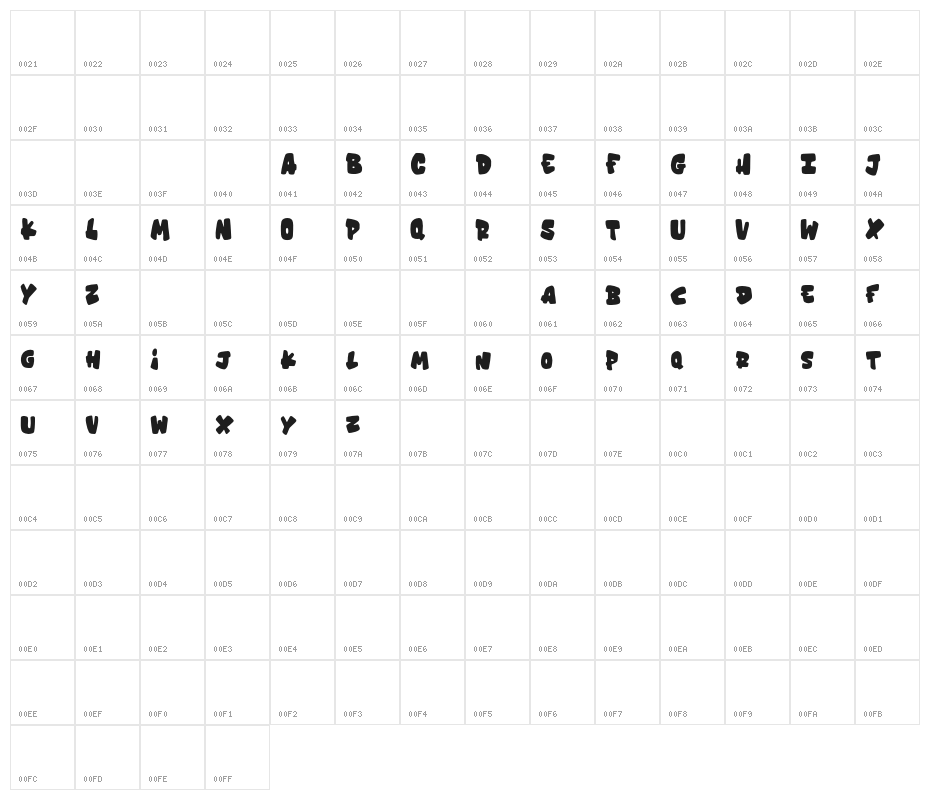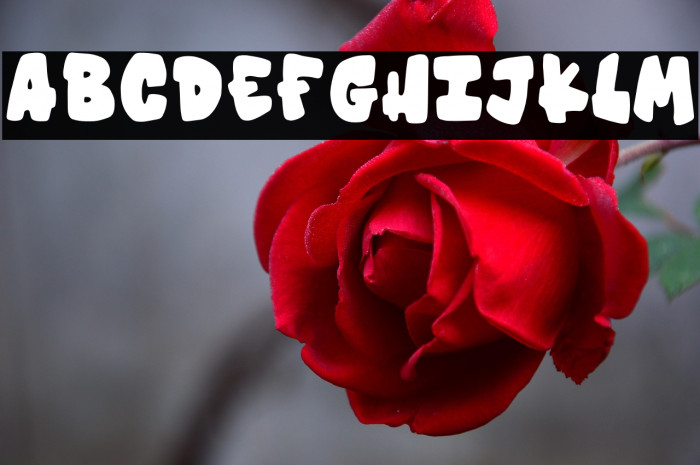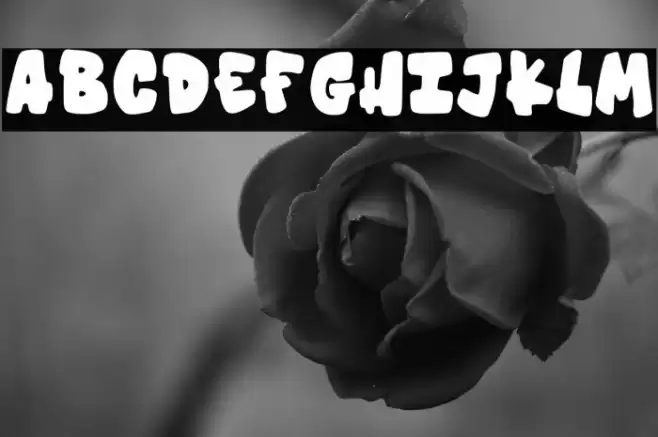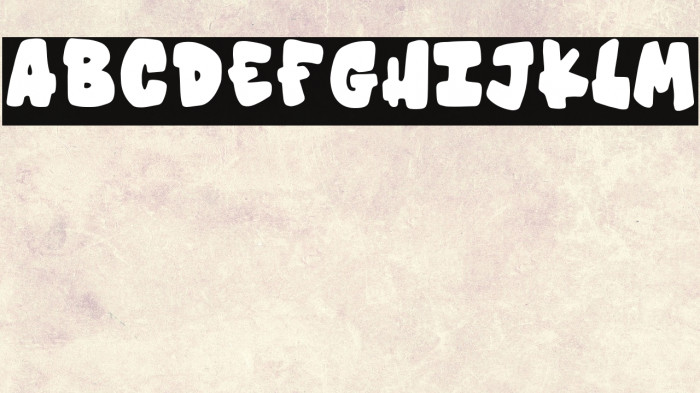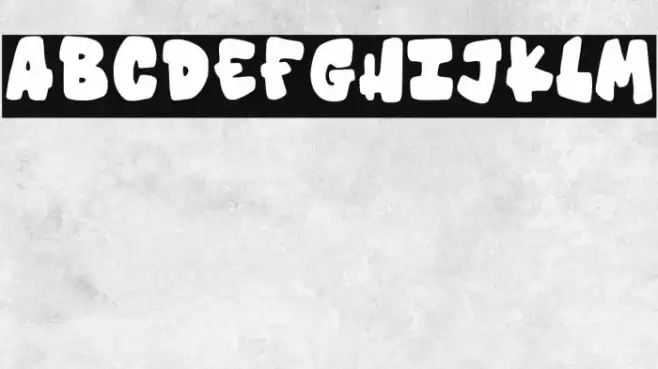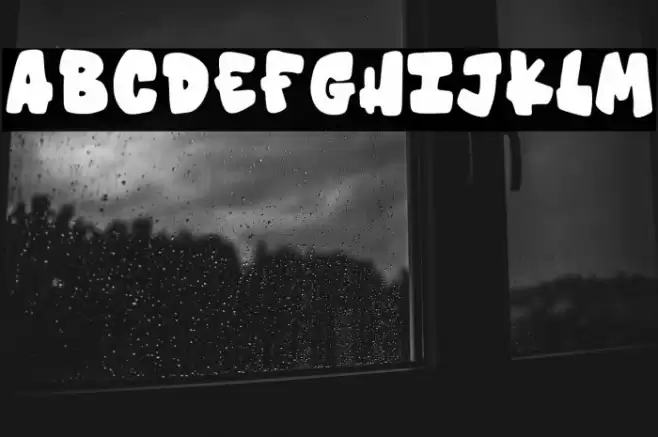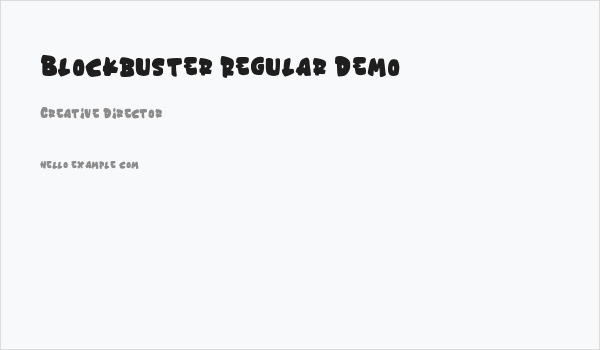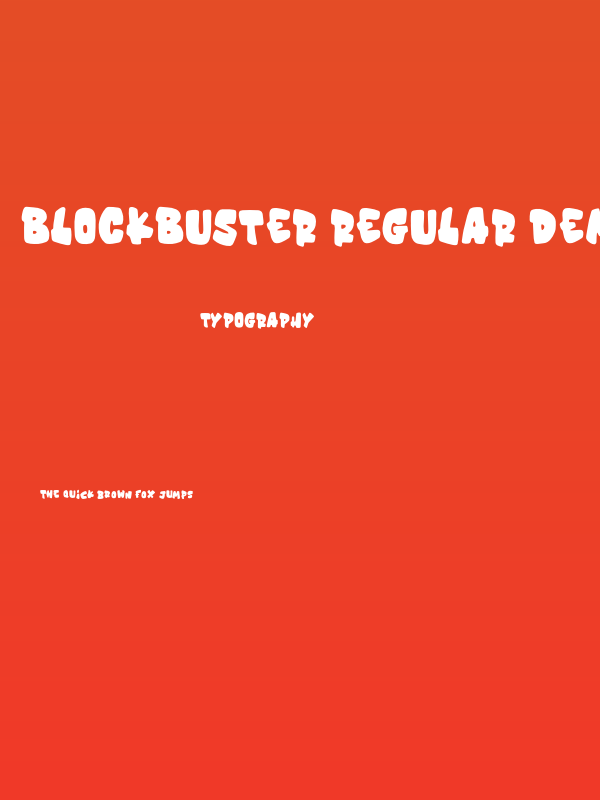
Blockbuster Regular Demo Font
Blockbuster Regular Demo Description
This font features bold, playful characters with a distinct, chunky appearance. The letters are rounded and have a hand-drawn feel, giving them a lively and informal look. The strokes are thick and consistent, providing a strong visual impact. The overall style is reminiscent of comic book lettering, making it ideal for projects that require a fun and energetic vibe. The characters are tightly spaced, enhancing the boldness and making the text stand out. This font is perfect for creating eye-catching headlines, posters, and logos that need to convey a sense of excitement and creativity.
| Overall Style | Playful, Energetic |
| Proposed Projects | Ideal for comic books, children's books, playful branding, and event posters. |